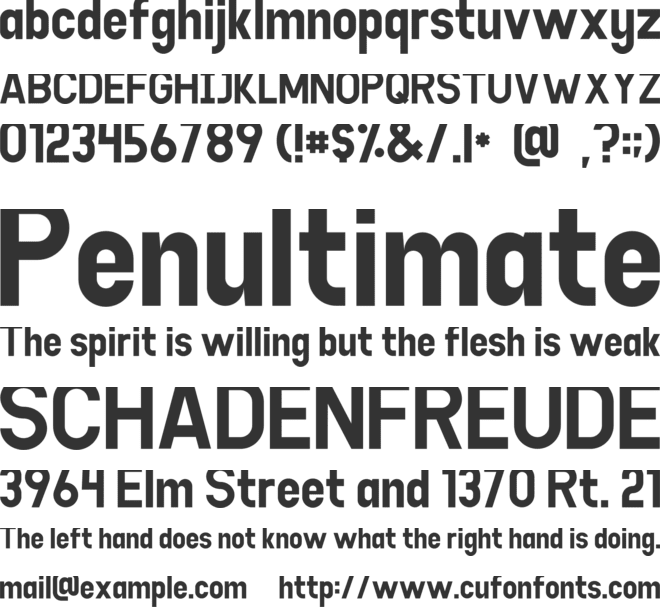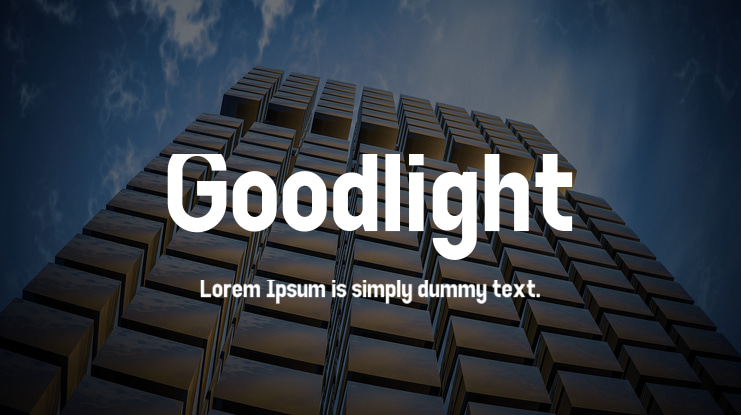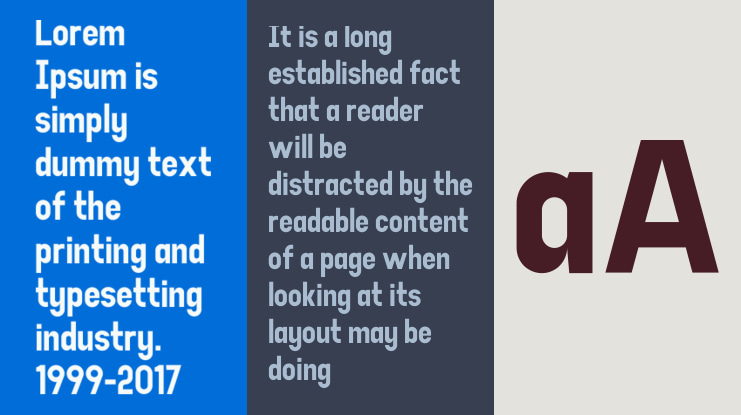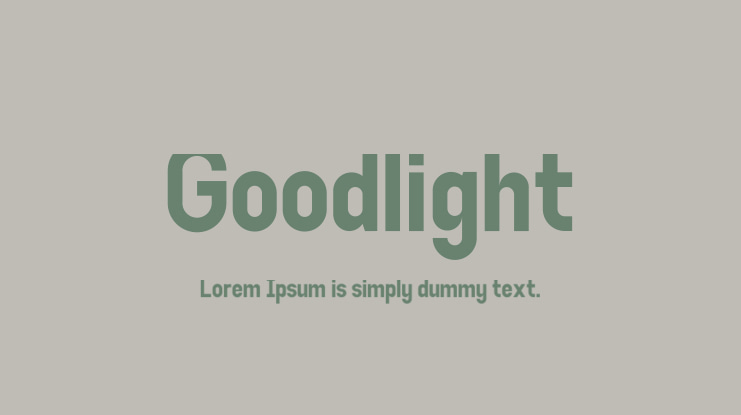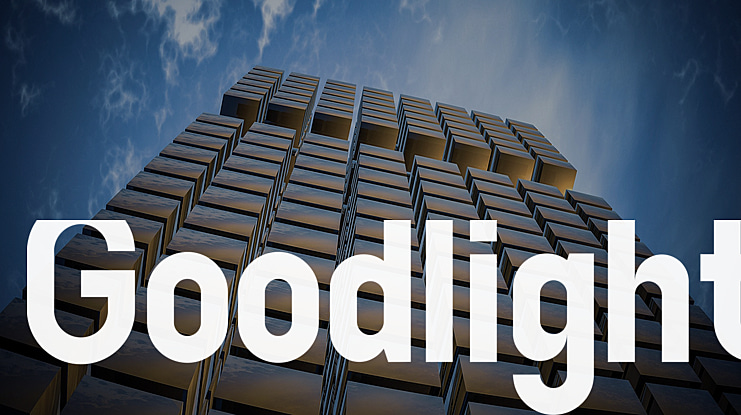
Goodlight Font
A sans serif font inspired by drone of a walk home in the night.
I made this with the help of a bunch of people. As this my first font, it has many flaws. I hope you enjoy it.